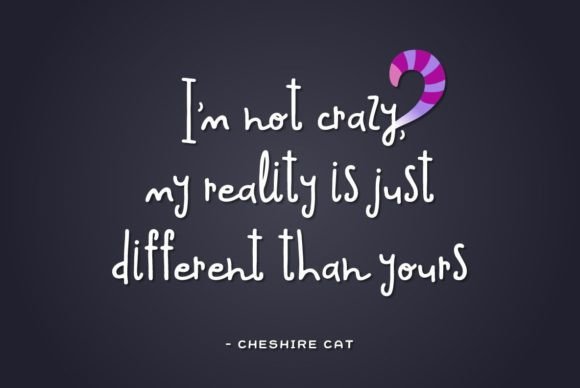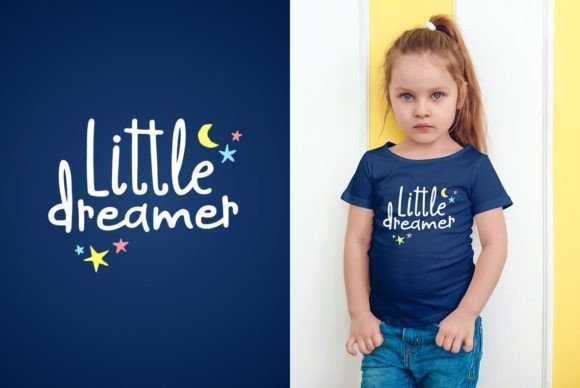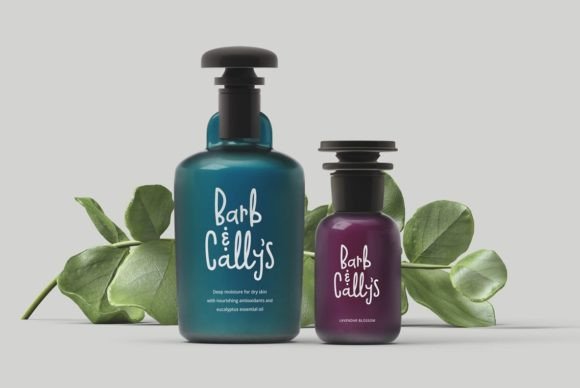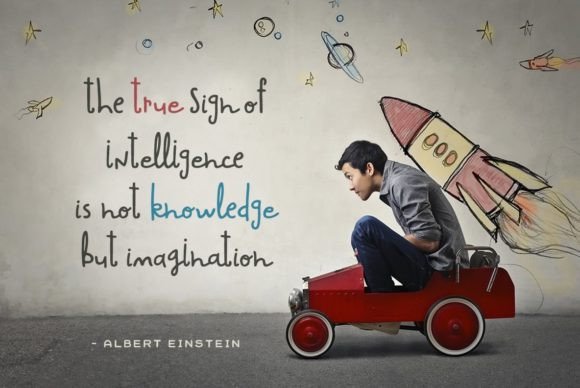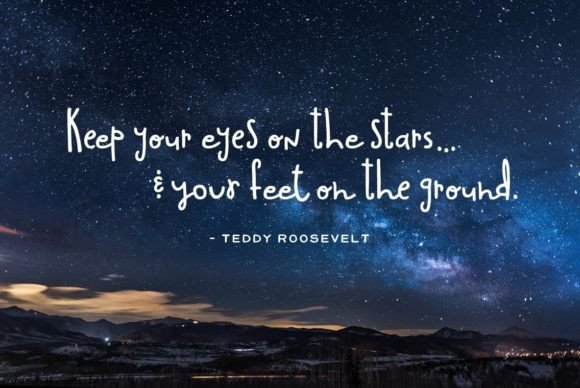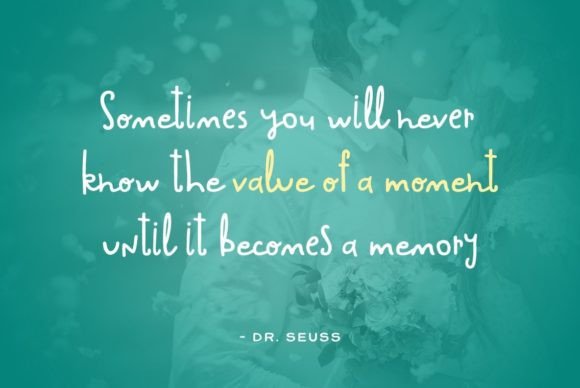
Discover the Charm of Barb and Cally Font: The Ultimate Duo for Your Design Needs
Are you tired of using the same old fonts for your design projects? Look no further! Introducing Barb and Cally, a friendly and unique font duo that’s sure to make your designs stand out. As their name suggests, Barb and Cally are like two peas in a pod, always working together in perfect harmony to bring a fun and youthful style to your next project.
The Story Behind Barb and Cally
Barb and Cally are more than just fonts – they’re a design dream team. Created with the goal of providing a simple, casual, and highly versatile font combination, Barb and Cally are perfect for designers and crafters looking to add a personal touch to their work. Whether you’re designing a logo, creating a social media graphic, or crafting a handmade project, this dynamic duo has got you covered.
What Makes Barb and Cally So Special?
So, what sets Barb and Cally apart from other font combinations? Here are just a few reasons why they’re a cut above the rest:
• Friendliness and Approachability: Barb and Cally exude a warm and welcoming vibe, making them perfect for designs that require a personal touch.
• Uniqueness: This font duo boasts a distinctive style that’s sure to grab attention and leave a lasting impression.
• Versatility: Whether you’re designing for print or digital media, Barb and Cally can adapt to any style or format.
• Simplicity: With their clean lines and simple shapes, Barb and Cally are easy to read and work with, making them perfect for a wide range of design applications.
How to Use Barb and Cally in Your Designs
Ready to bring Barb and Cally into your design workflow? Here are some ideas to get you started:
• Pair them up: Use Barb and Cally together to create stunning headings, titles, and captions that are sure to turn heads.
• Mix and match: Experiment with different font sizes, colors, and styles to create a unique look that reflects your brand or personal style.
• Add some flair: Use Barb and Cally to add a playful touch to your designs, from invitations and greeting cards to social media graphics and blog posts.
Barb and Cally are a match made in heaven for designers and crafters who want to add a personal touch to their work. Whether you’re a professional designer or a DIY enthusiast, this font duo is sure to inspire your creativity and help you achieve your design goals.
From handmade crafts and stationery to digital products and marketing materials, Barb and Cally can help you:
• Stand out from the crowd: With their unique style and friendly vibe, Barb and Cally can help you differentiate your brand or personal style from the competition.
• Connect with your audience: This font duo is perfect for designs that require a personal touch, helping you build a stronger connection with your audience.
• Save time and effort: With their simplicity and versatility, Barb and Cally can save you time and effort in your design workflow, allowing you to focus on what matters most – creating amazing designs!
In conclusion, Barb and Cally are a dynamic font duo that’s sure to bring a fun and youthful style to your next design project. With their friendly and unique vibe, simplicity, and versatility, they’re perfect for designers and crafters who want to add a personal touch to their work. So why wait? Discover the charm of Barb and Cally today and take your designs to the next level!